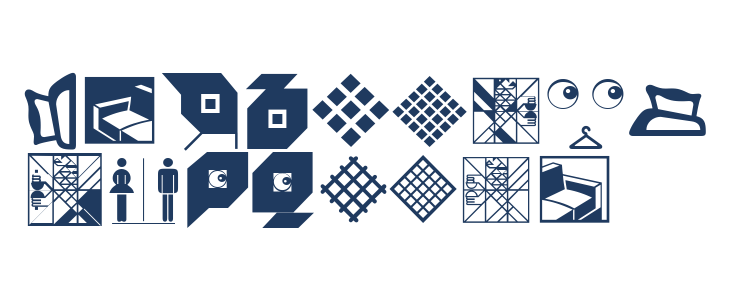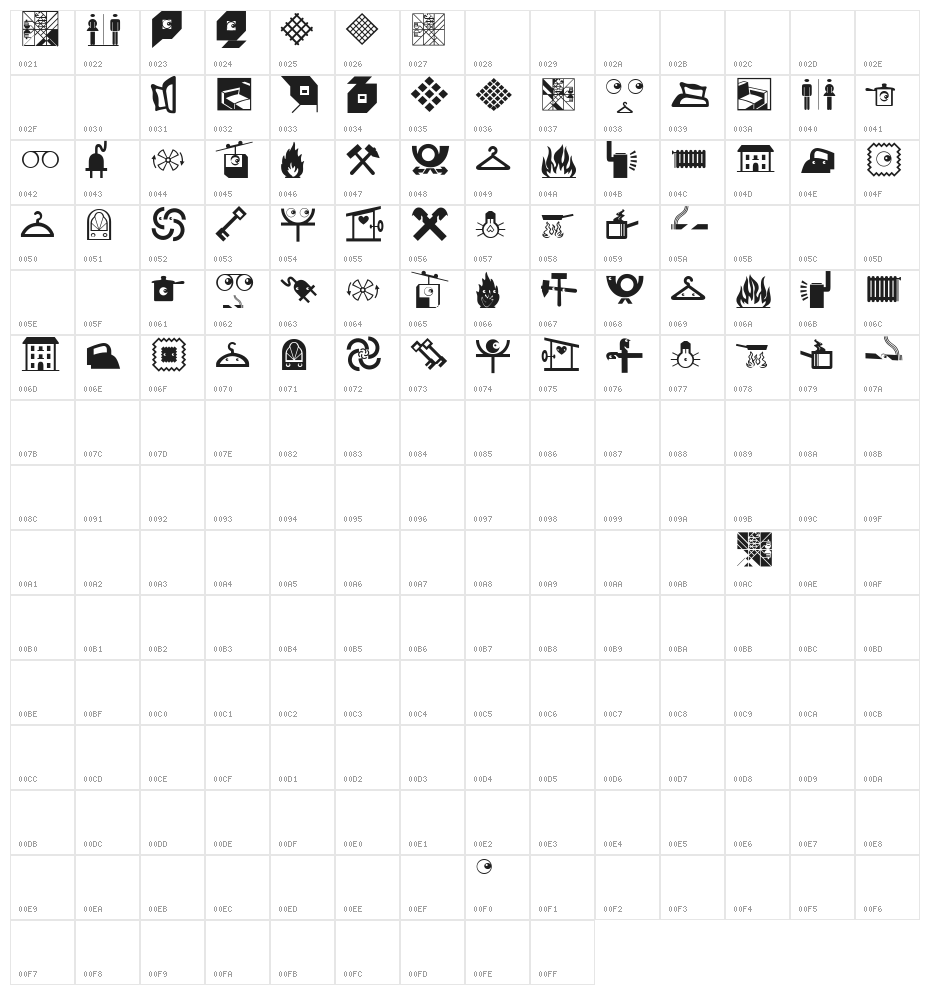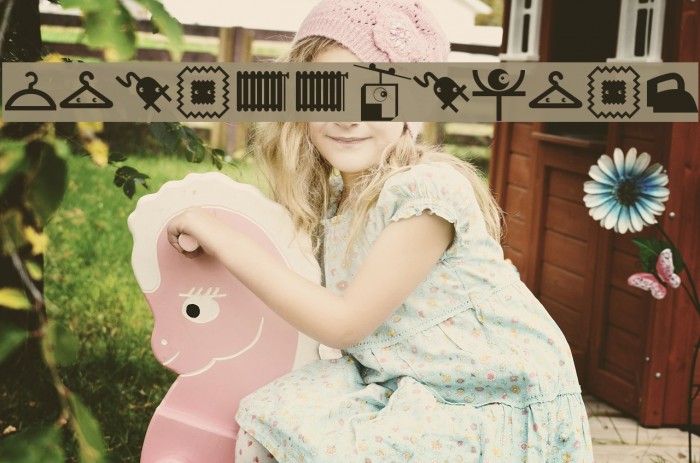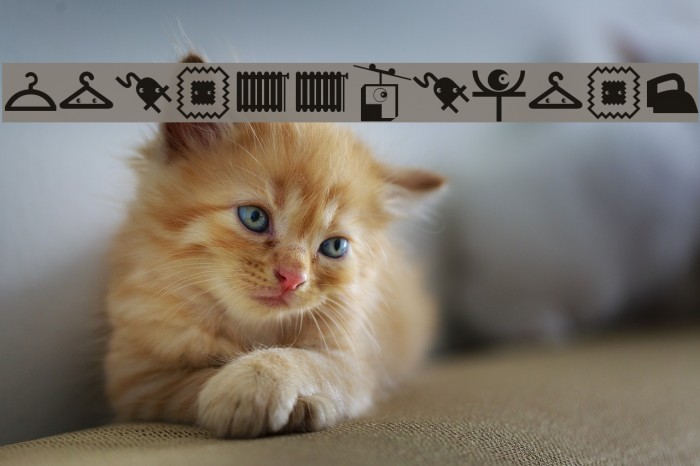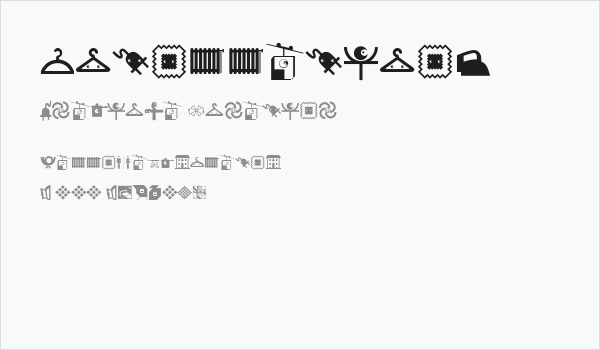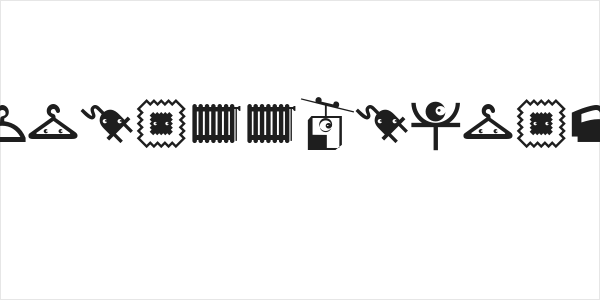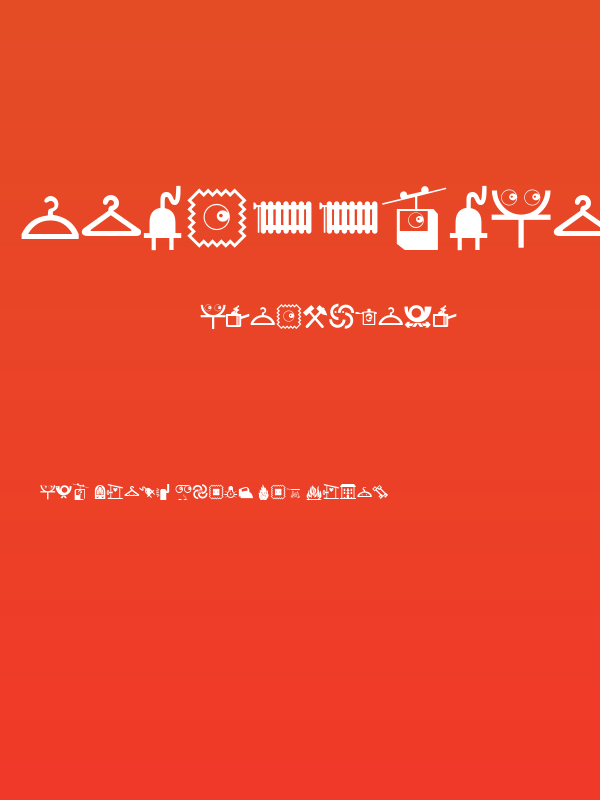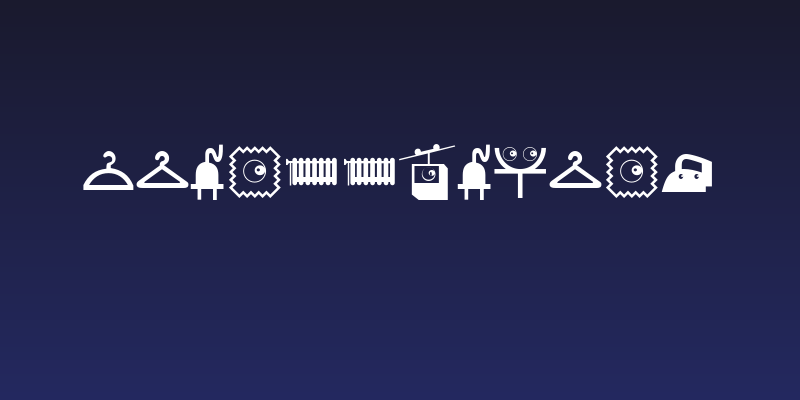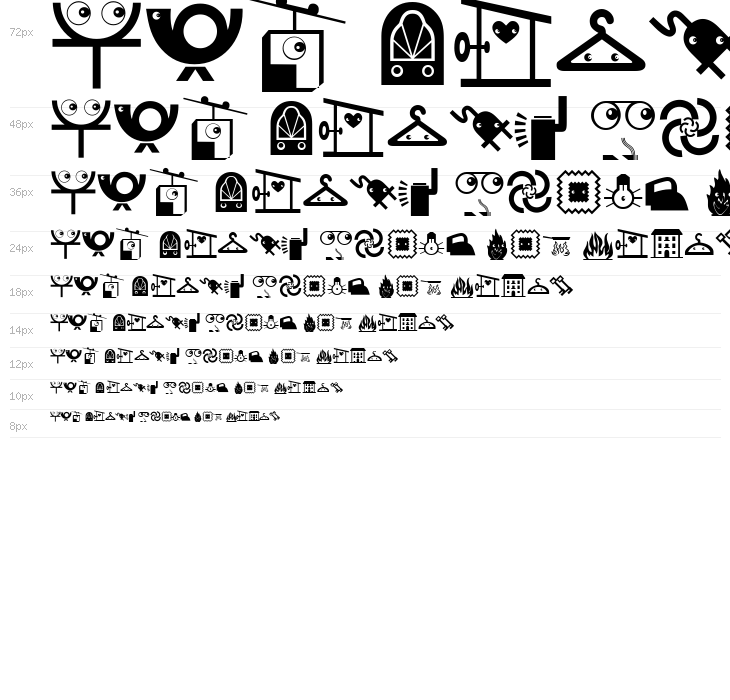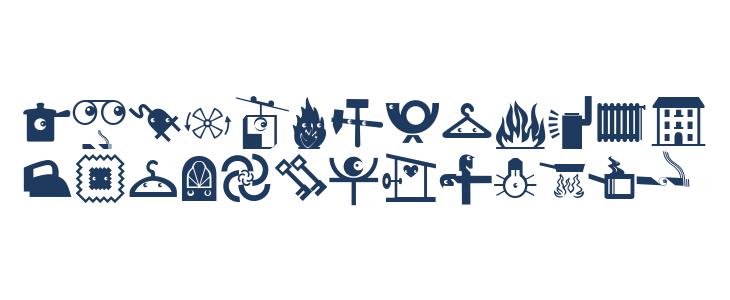
Picollection Font
Picollection Description
A pictogram-based dingbat font featuring a variety of household, laundry, and geometric symbols, including irons, hangers, radiators, fire, people, and abstract shapes. The glyphs are bold, highly stylized, and designed for visual communication rather than text.
| Overall Style | Decorative, Modern, Pictographic |
| Use Case | Icons, Infographics, Signage, Visual instructions |
| Proposed Projects | Infographics, signage, instructional materials, icon sets, visual guides, creative layouts. |